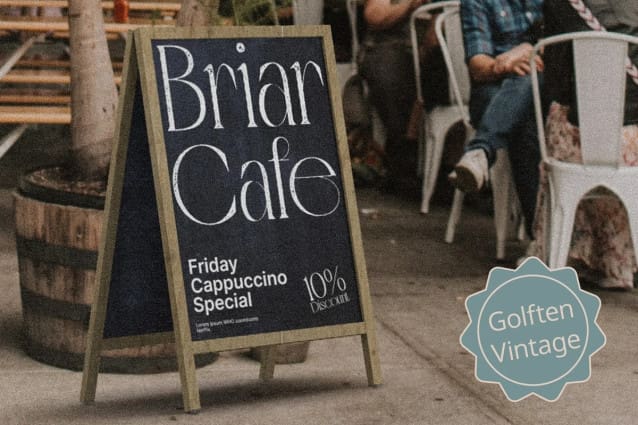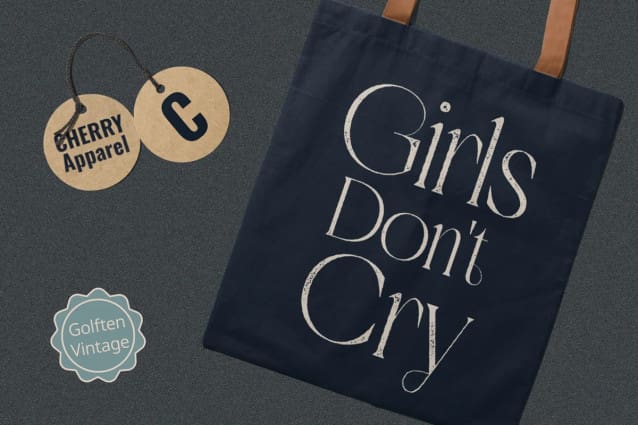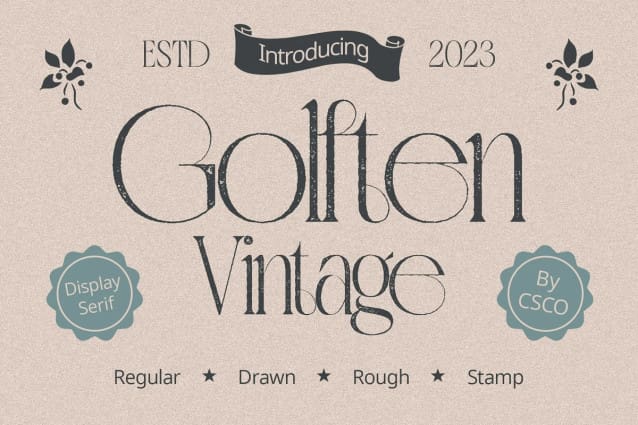
Golften Vintage Font
Golften Vintage Font – Art Nouveau Serif Timeless Inspiration GolftenVintage Art Nouveau Serif, transcends conventional design. Drawing inspiration from Art Nouveau, it redefines timeless elegance with a blend of grace and precision.
Curvaceous Serenity With gracefully intertwining curvaceous elements, this font exudes a sense of serenity, echoing Art Nouveau’s organic and flowing forms.
Distinctive Craftsmanship Meticulously crafted, Golften Vintage showcases distinctive craftsmanship, ensuring each character reflects the grace and sophistication of the Art Nouveau era.
Versatile Retro Charm Beyond mere nostalgia, Golften Vintage exudes a versatile retro charm, making it perfect for a range of creative projects, from branding to vintage-inspired designs.
In Conclusion Golften Vintage stands as a testament to the enduring allure of Art Nouveau. Its timeless inspiration, curvaceous serenity, distinctive craftsmanship, and versatile retro charm make it a delightful choice for those seeking to infuse their projects with a touch of vintage elegance. Elevate your designs with the enchanting and nostalgic allure of GolftenVintage.